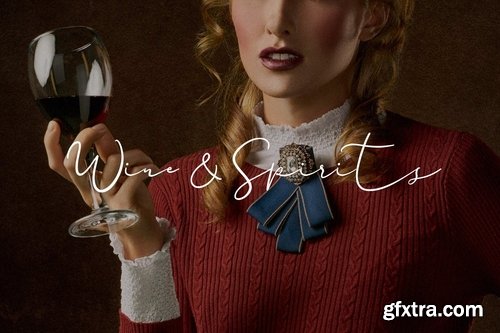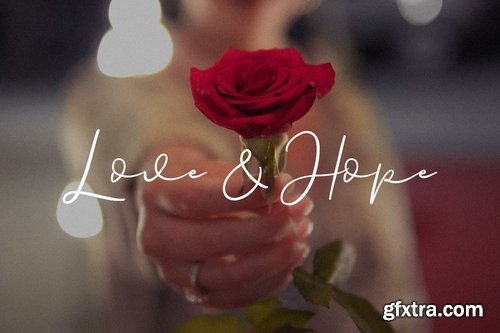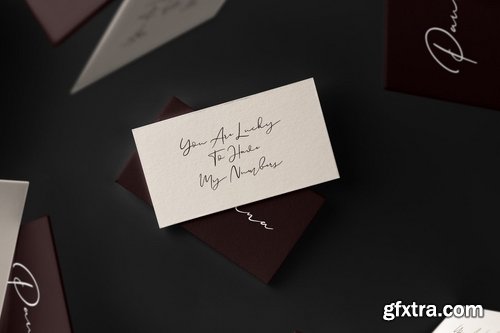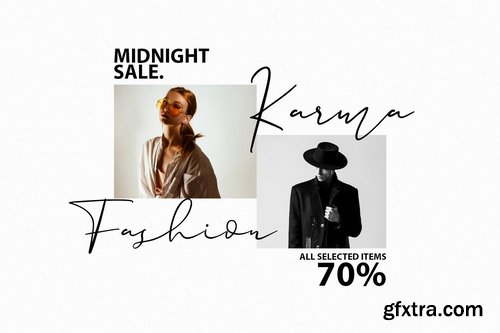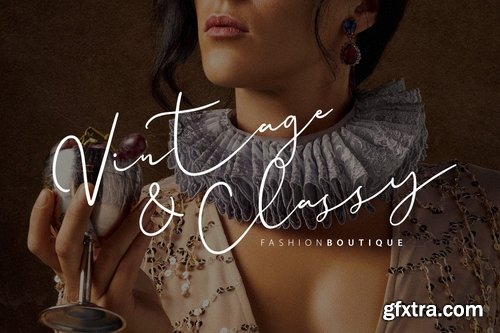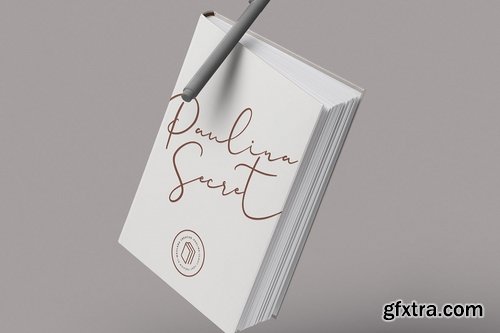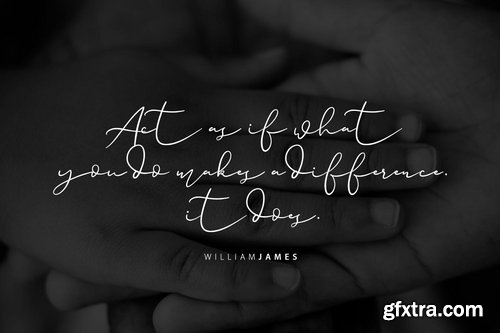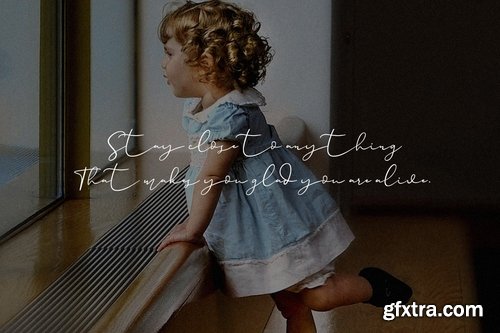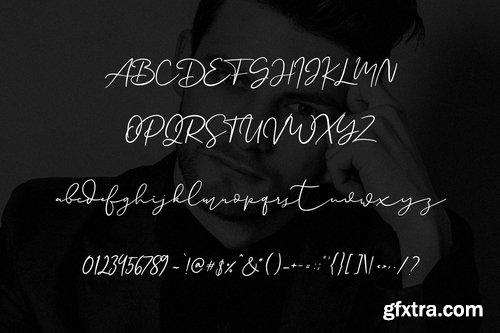
Give your designs an authentic handcrafted feel. “Paulina Script” is perfectly suited to signature, stationery, logo, typography quotes, magazine or book cover, website header, clothing, branding, packaging design and more.